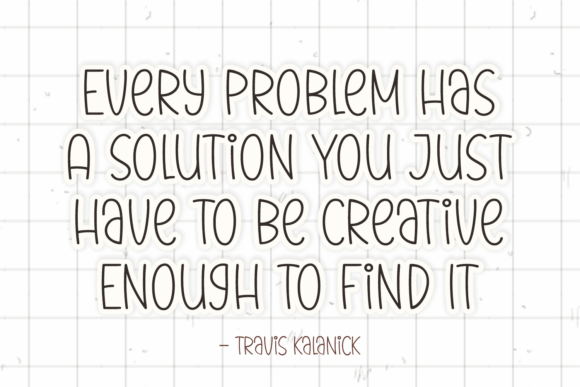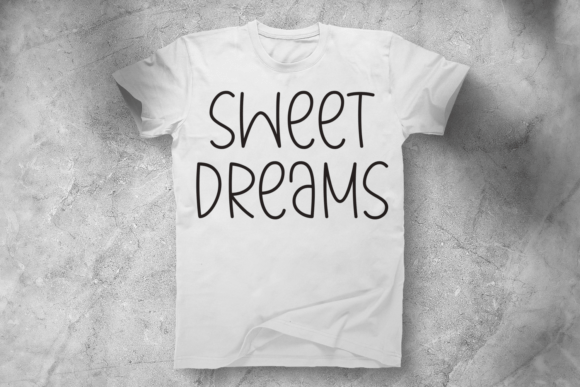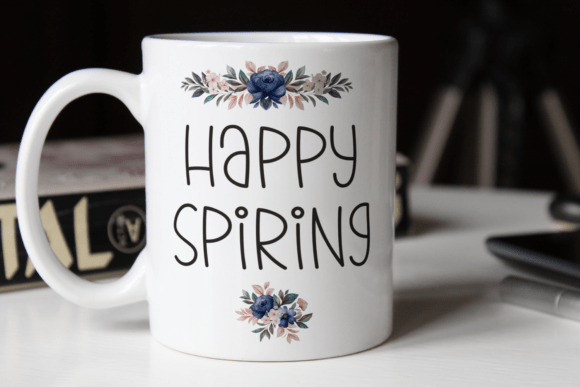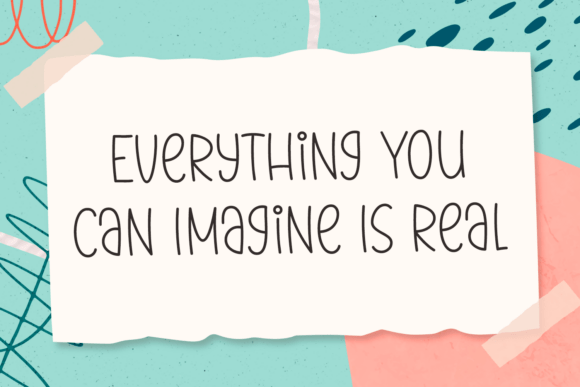
Discover the Charm of Great Solution Font: Elevate Your Designs with Elegance and Simplicity
In the world of typography, few fonts manage to strike a balance between elegance, simplicity, and charm. Great Solution, a beautifully handmade font, is one such gem that has captured the hearts of designers and crafters alike. With its precision-crafted lines and thoughtful design, Great Solution is the perfect choice for projects that require a touch of sophistication and a dash of playfulness.
A Font that Echoes Simplicity and Elegance
Great Solution’s design is rooted in simplicity, making it an ideal choice for child-friendly designs, school-based projects, and any creative endeavor that requires a font that is both stylish and approachable. The font’s clean, smooth lines and sans-serif finish give it an air of elegance that is hard to ignore. Whether you’re working on a book, creating notes, or crafting product descriptions, Great Solution is a versatile font that effortlessly brings your text to life.
The Perfect Blend of Style and Comfort
One of the standout features of Great Solution is its minimalist structure, which makes it comfortable to read and visually appealing. The font’s design is reminiscent of a warm summer day, evoking feelings of serenity and calmness. This unique blend of style and comfort makes Great Solution a joy to use, whether you’re designing for print or digital media.
A Love Letter to Fonts: Great Solution’s Unique Charm
Great Solution is more than just a font – it’s a love letter to typography. With its overflowing charm and cute, stylish design, this font transcends the ordinary, capturing the hearts of designers and readers alike. Its ability to pique interest and retain attention makes it an excellent choice for projects that require a font that can engage and inspire.
Great Solution is a versatile font that can be used in a wide range of projects, from:
- Books and eBooks: Add a touch of elegance to your literary projects with Great Solution’s clean and sophisticated design.
- Notes and Journals: Make your notes and journals stand out with Great Solution’s stylish and approachable font.
- Product Descriptions: Elevate your product descriptions with Great Solution’s charming and engaging design.
- School-Based Projects: Great Solution’s simplicity and elegance make it an excellent choice for school-based projects, such as posters, presentations, and reports.
Why Choose Great Solution Font?
With so many fonts available, why choose Great Solution? Here are just a few reasons:
- Unique Design: Great Solution’s handmade design sets it apart from other fonts, making it a one-of-a-kind addition to your typography collection.
- Versatility: Great Solution can be used in a wide range of projects, from books and notes to product descriptions and school-based projects.
- Elegance and Simplicity: Great Solution’s design strikes the perfect balance between elegance and simplicity, making it an excellent choice for projects that require a touch of sophistication and a dash of playfulness.
Great Solution font is a beautifully crafted font that is sure to capture your heart. With its unique blend of elegance, simplicity, and charm, it’s the perfect choice for designers and crafters looking to elevate their projects. Whether you’re working on a book, creating notes, or crafting product descriptions, Great Solution is a versatile font that will bring your text to life. So why wait? Fall in love with the simplicity of Great Solution and use it to breathe life into your messages.